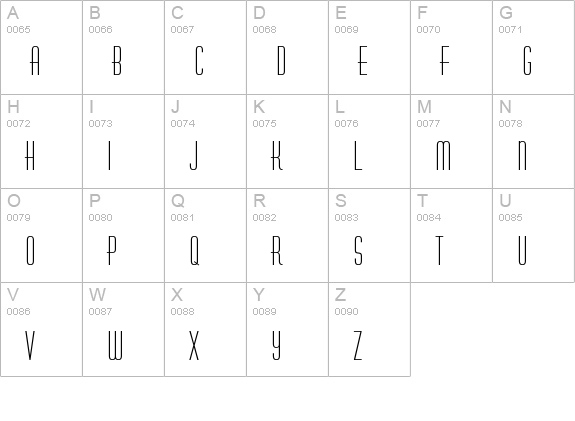
Markon Vertical Font Details
Markon Vertical font is a visually stunning typeface that exudes elegance and sophistication. Its unique vertical design adds a touch of modernity and creativity to any project, making it perfect for both digital and print applications. The sleek and streamlined letterforms of Markon Vertical font effortlessly capture attention and create a memorable visual impact. With its wide range of weights and styles, Markon Vertical font offers versatility and flexibility for any design project. Whether you are working on a logo, branding materials, website design, or advertising campaigns, this font will elevate your work to new heights. What makes Markon Vertical font even more appealing is that it is free! Yes, you read that right. This exceptional font is freely available to download at FontsMarket.com. This means that you have the opportunity to enhance your designs with a high-quality font without spending a dime. Say goodbye to the limitations of generic fonts and embrace the beauty and uniqueness of Markon Vertical font. Download it today at FontsMarket.com and let your creativity soar. Whether you are a professional designer or a passionate hobbyist, this font will undoubtedly become a valuable addition to your collection. So why wait? Take advantage of this amazing opportunity to obtain a premium font for free. Download Markon Vertical font now and unlock a world of design possibilities.